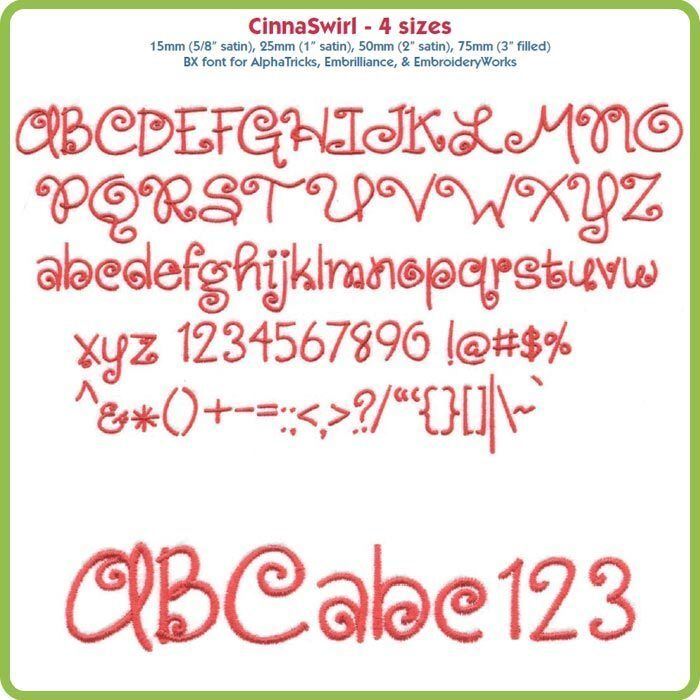
CinnaSwirl Font â€“ 4 sizes (included designs are not available individually)
Collection Notes:  CinnaSwirl is a rounded, stylized, curly sans serif font that includes A-Z, a-z, 0-9, and the following punctuation: ~!@#$%&()-[]:;"',.?/ in 4 sizes: 15mm (5/8" satin), 25mm (1" satin), 50mm (2" satin), 75mm (3" filled).